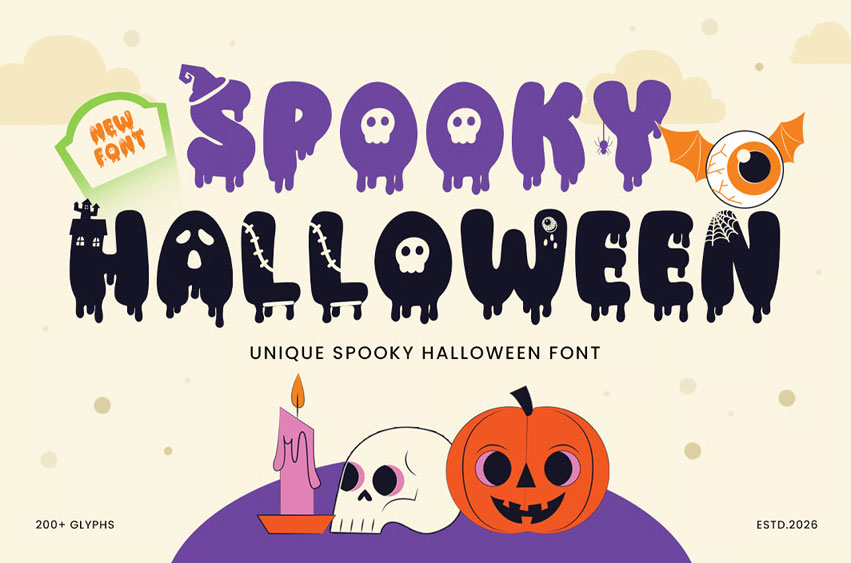
Spooky Halloween Font
Spooky Halloween Font is a frightening horror display font inspired by dark nights, haunted stories, and the chilling atmosphere of Halloween Day. Its spooky letterforms feature rough edges and eerie details that instantly create a mysterious and terrifying impression.
Created as a bold display font, Spooky Halloween is perfect for Halloween-themed designs such as posters, banners, party flyers, event signage, and scary decorations. The strong and dramatic characters make your text stand out while delivering a classic horror feel.
This font is also suitable for a wide range of seasonal projects, including Halloween invitations, Thanksgiving designs with an autumn touch, fall crafts, and creative lettering artworks. It brings a spooky mood that enhances both digital and printed designs.
Spooky Halloween works perfectly for SVG projects and cutting machines, making it ideal for Cricut, DIY crafts, stickers, mugs, posters, and creative merchandise. Its display style ensures readability without losing its creepy and playful character.